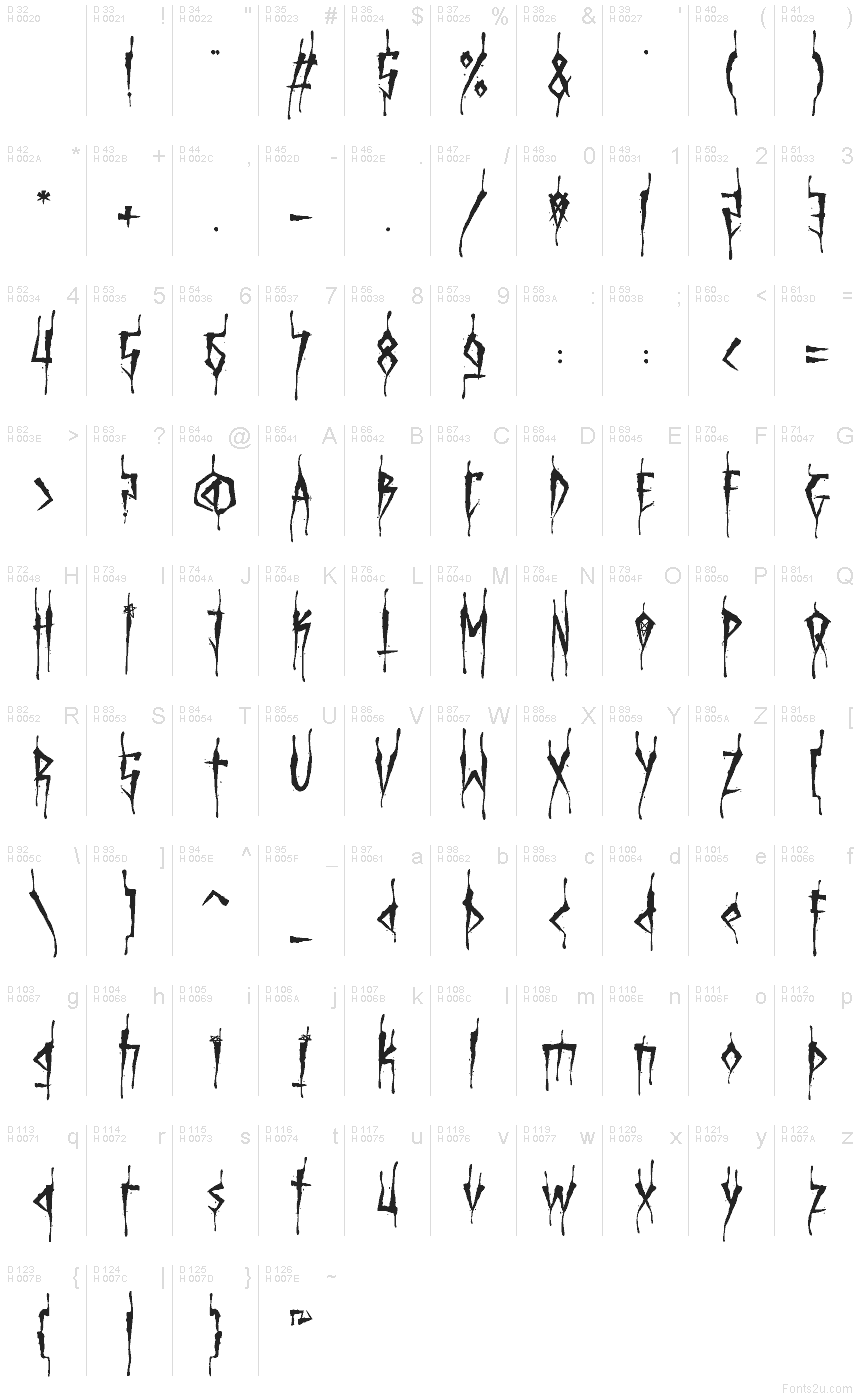
Brutal Brushstrokes Five
Brutal Brushstrokes Five font by PutraCetol Studio is a free Halloween display font. Part of the Brutal Brushstrokes family, it lunges off the page with needle‑tall strokes, scratchy edges, and splattered, inky breaks that feel freshly clawed. The uneven rhythm and jagged verticals pump up suspense while staying legible at headline sizes.
Using Brutal Brushstrokes Five, your haunted house posters, horror movie titles, party invites, escape room branding, game splash screens, and eerie social promos instantly gain a tense, hand‑scrawled bite. This free font shines on big, high‑contrast layouts; give it a touch of extra tracking for breath, and pair with a plain, sturdy sans for body copy to keep the scream readable.